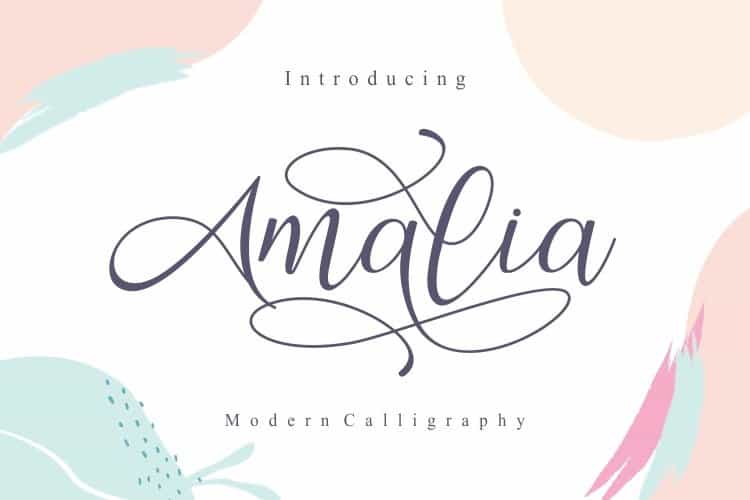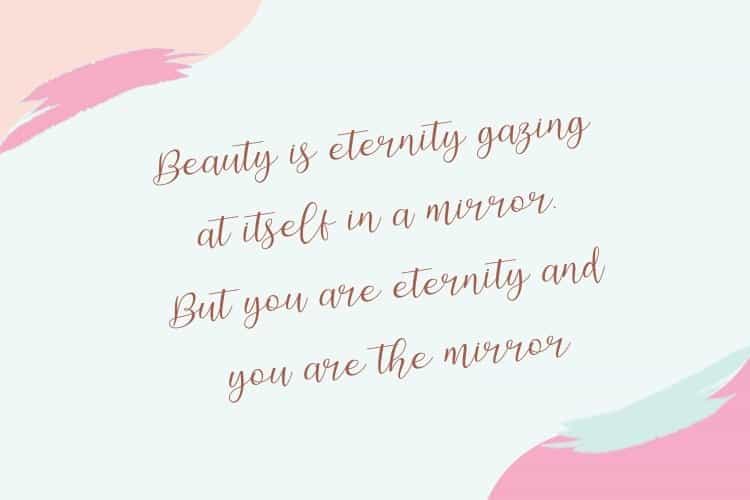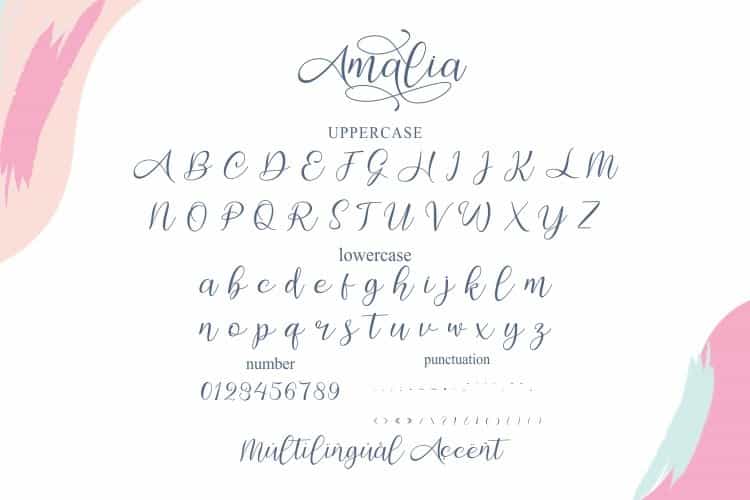
Amalia is a beautiful font that belongs to the Modern Calligraphy style. It gives your latest projects elegance and style; thus, the font is suitable for logos and branding, wedding invitations, wedding stationery, advertisements, social media posts, packaging designs, labels, photographs, watermarks, special occasions, and any other use imaginable.